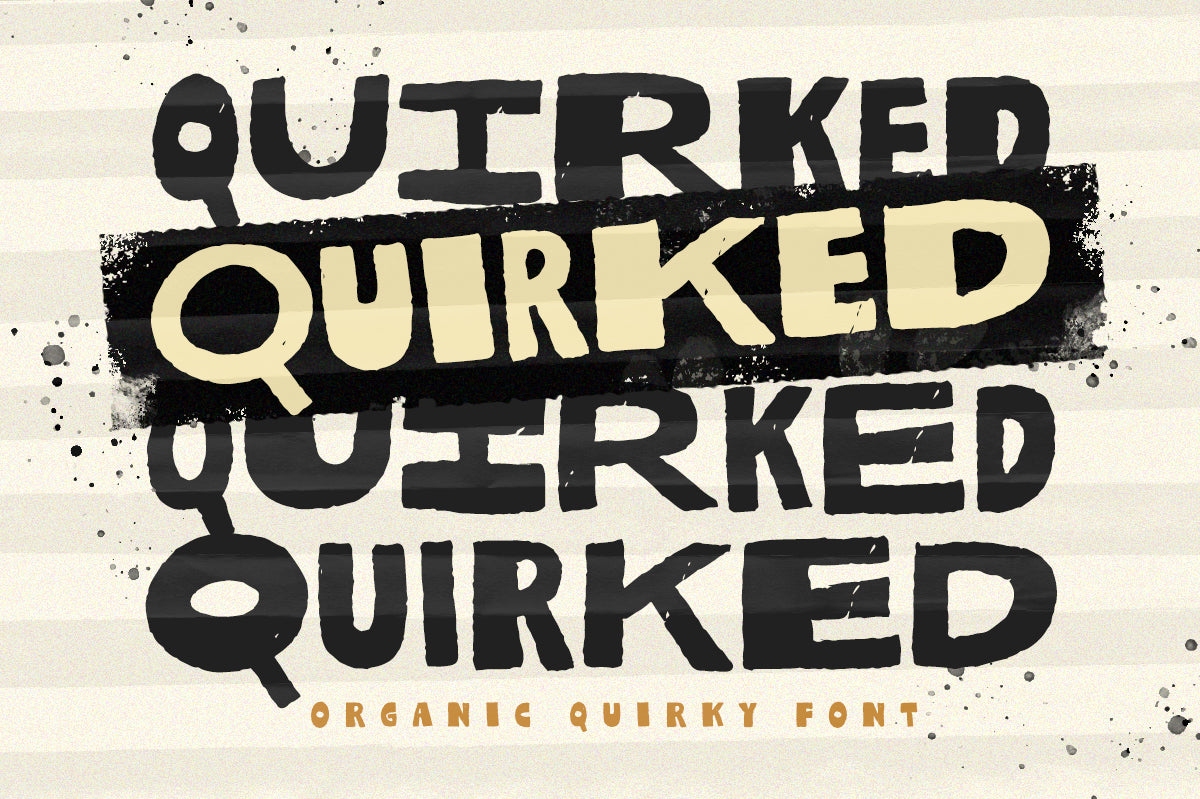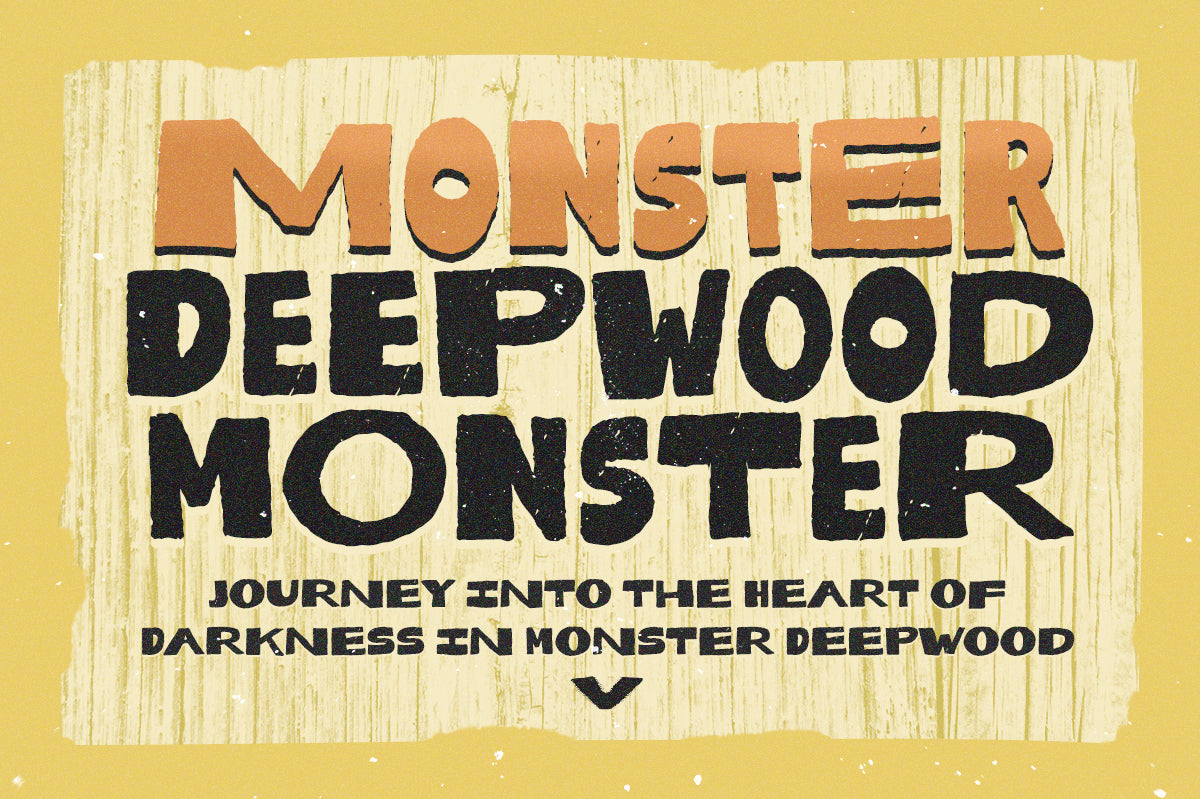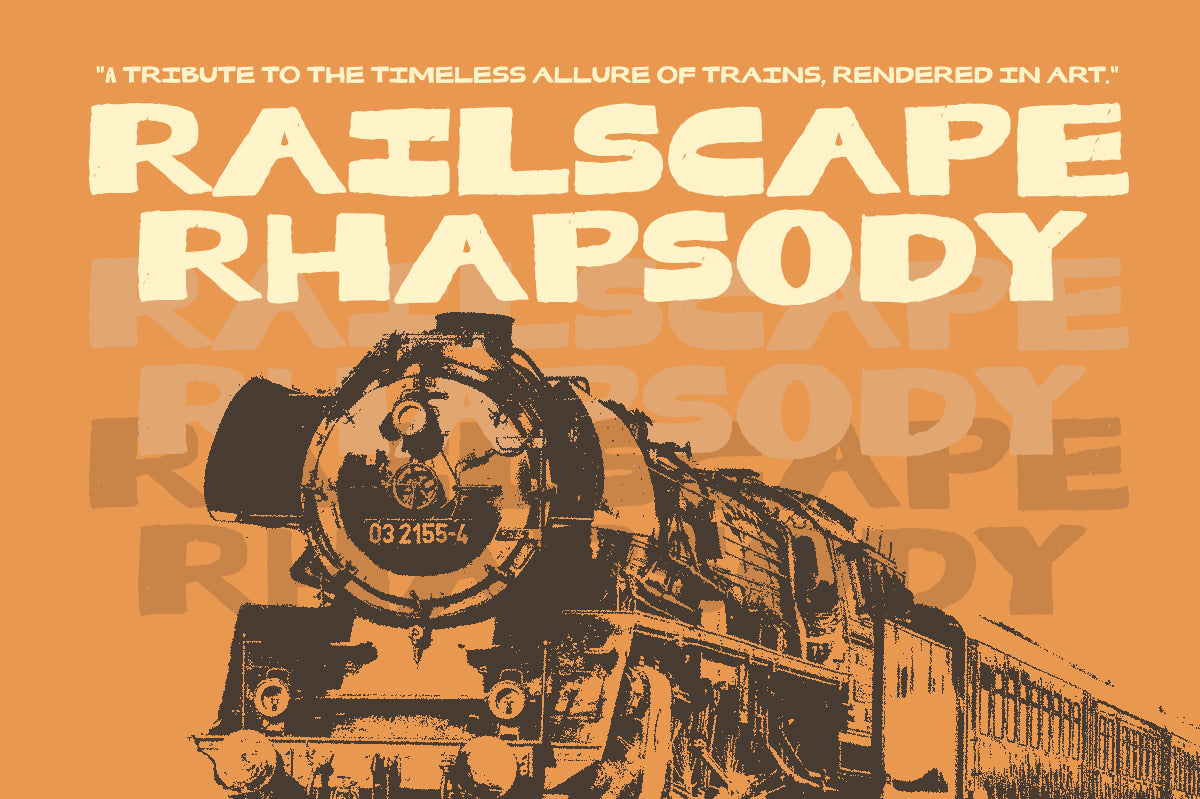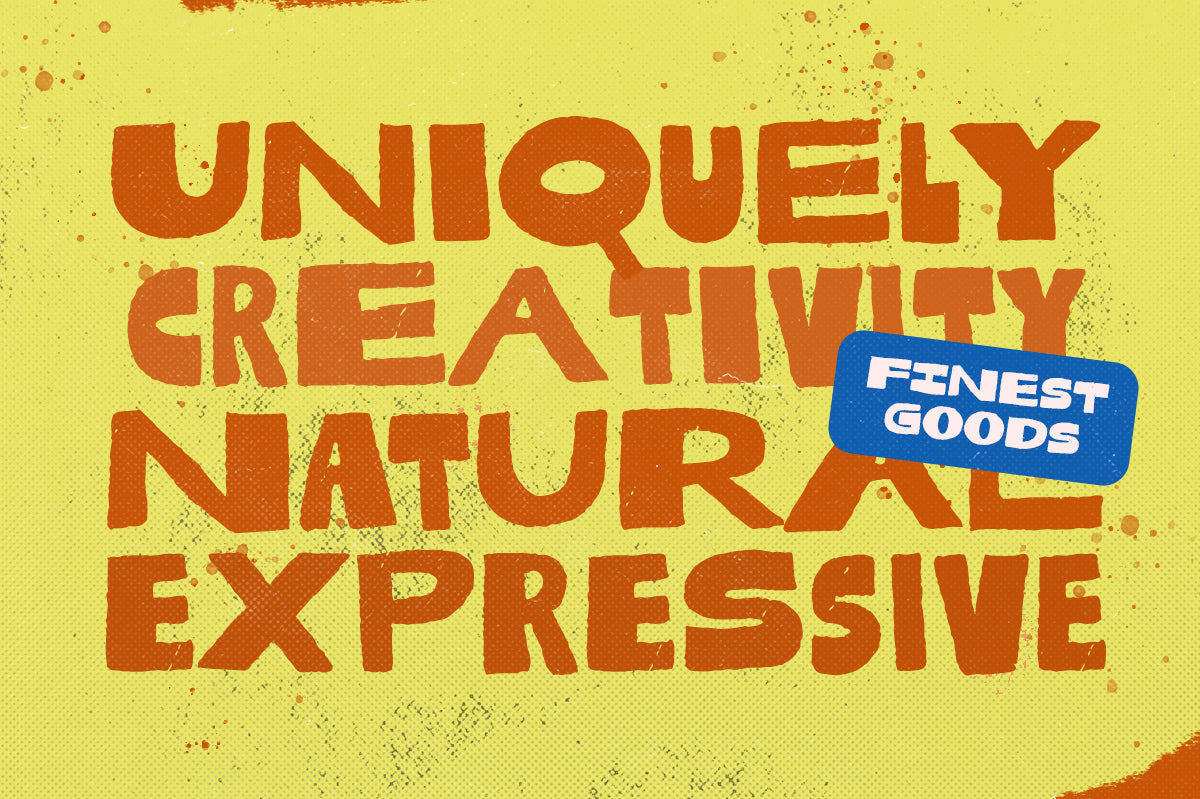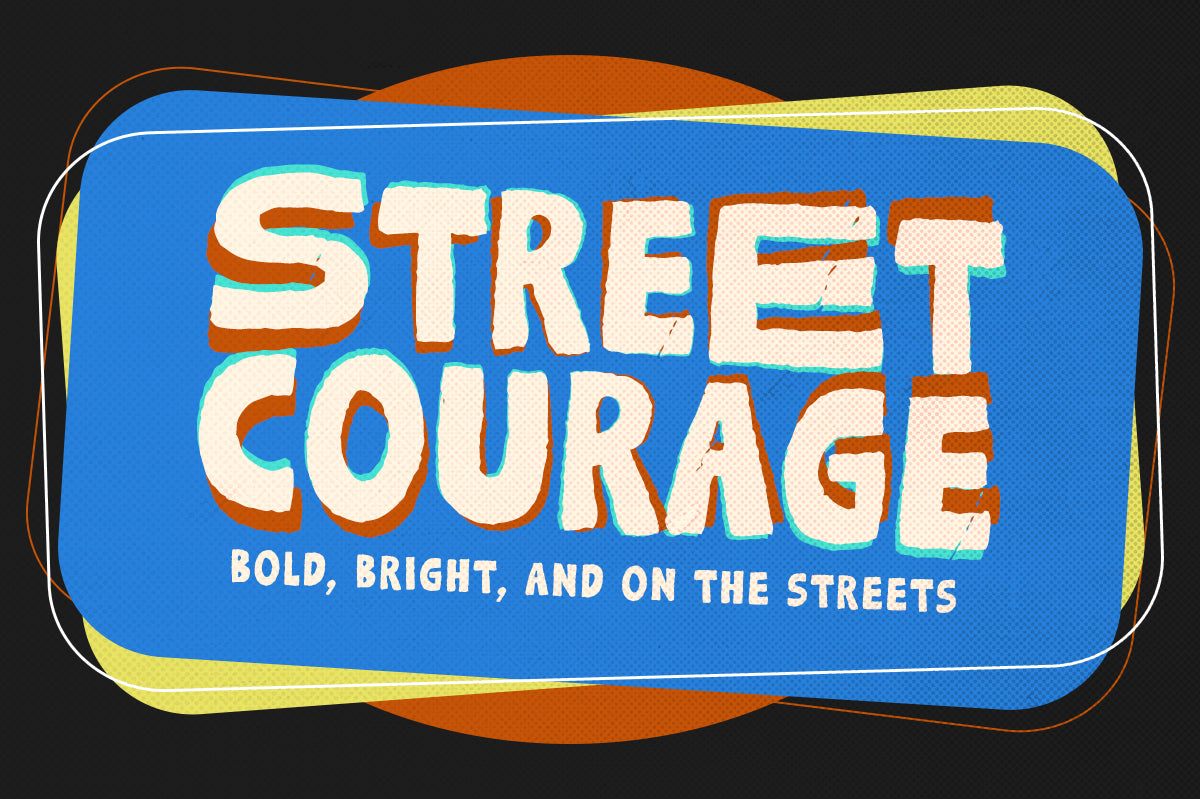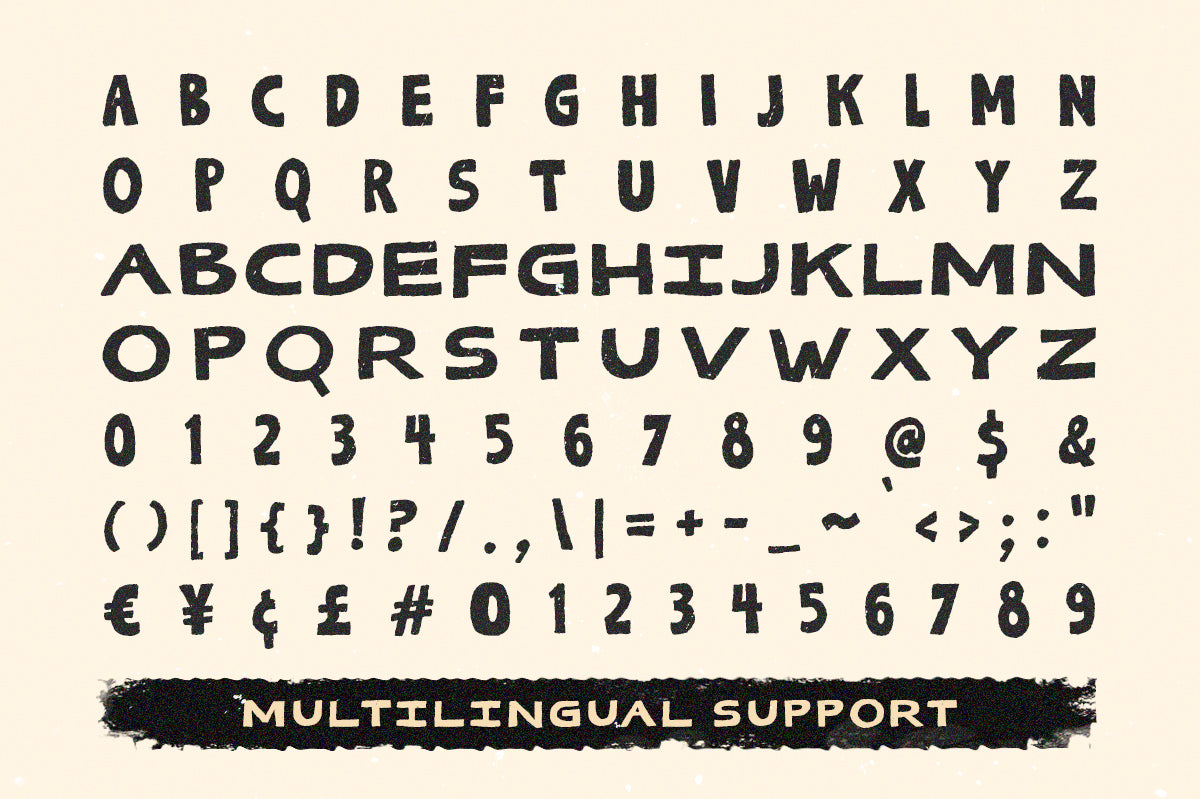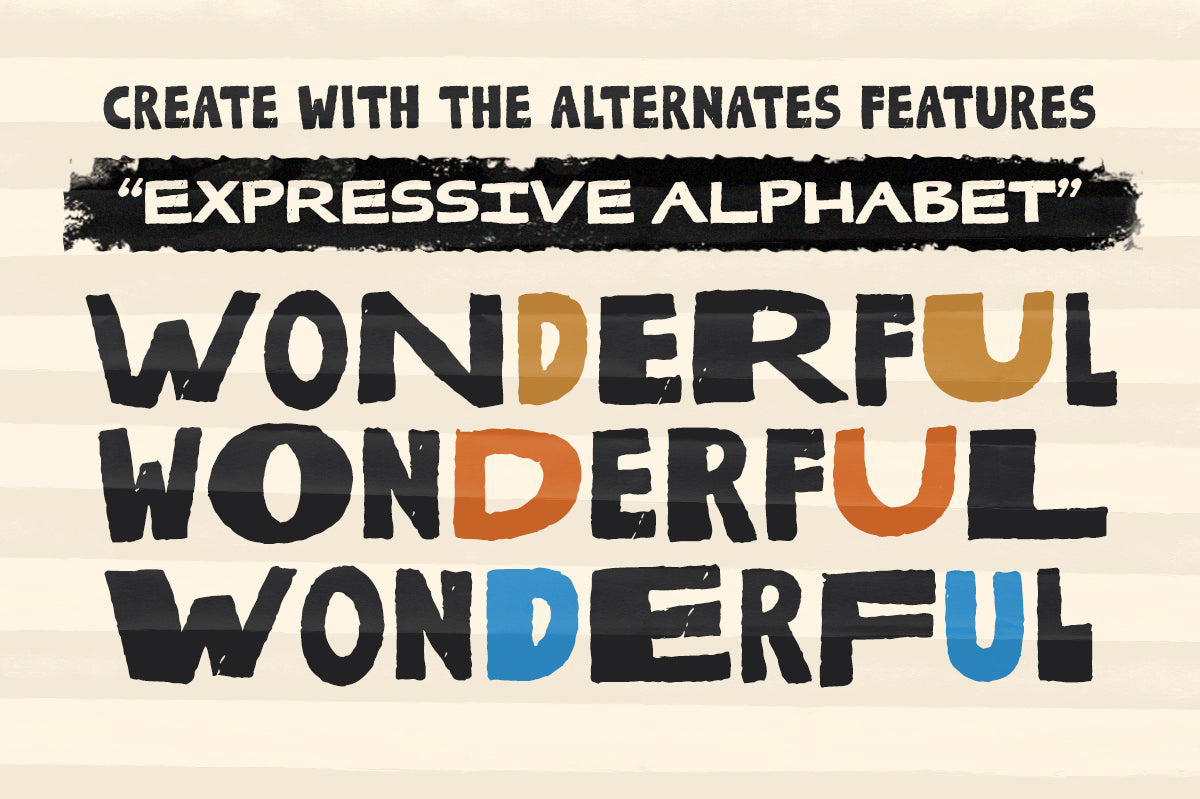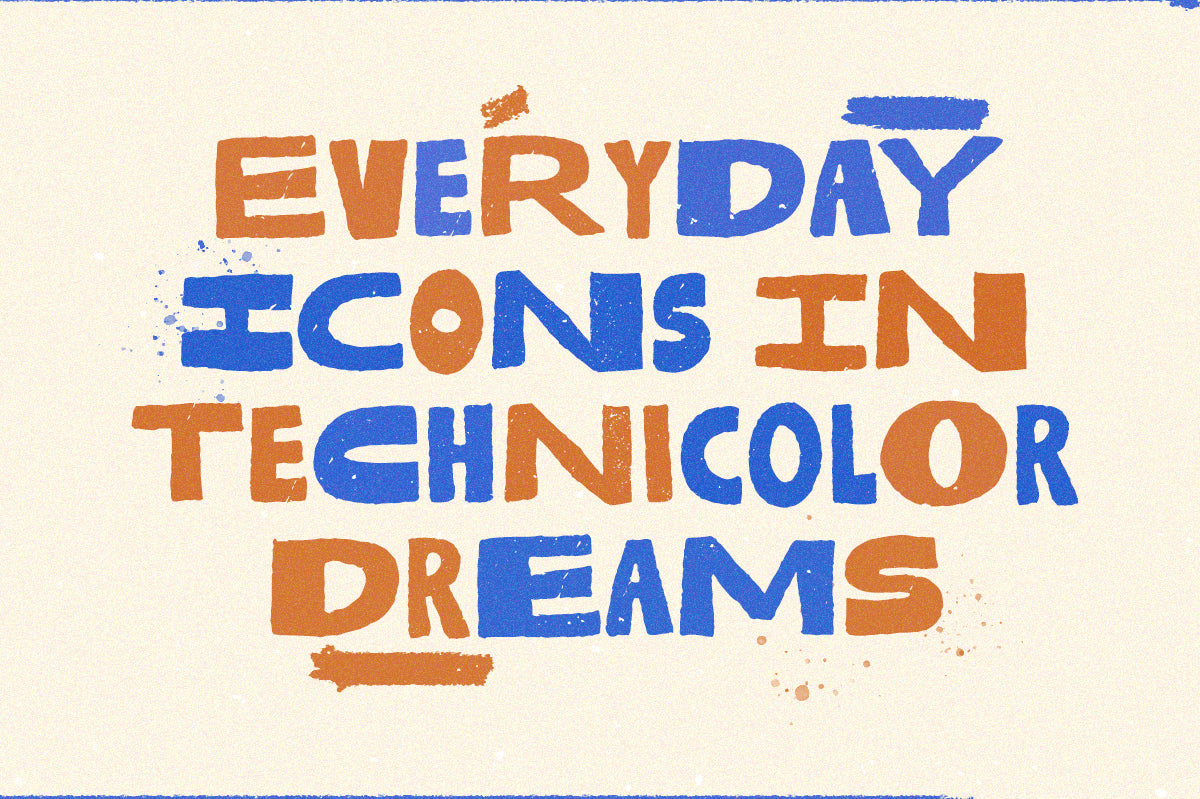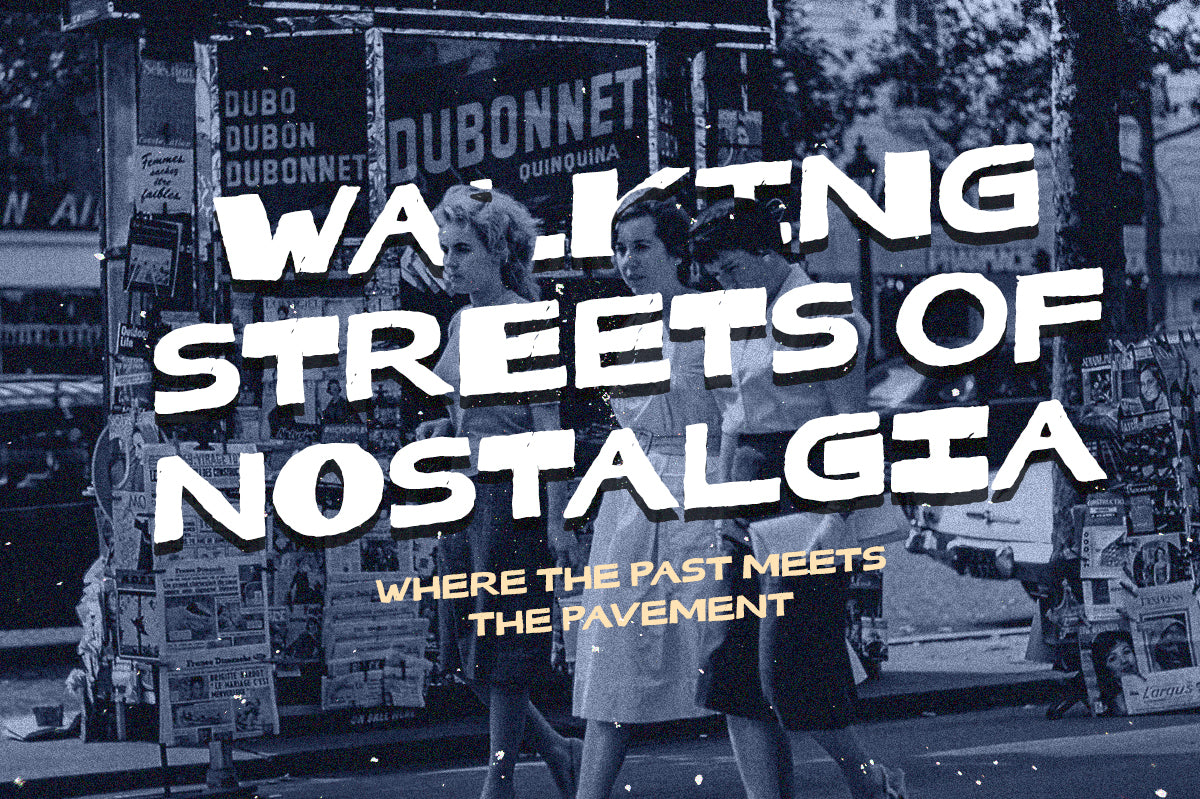
Quirked - Organic Quirky Font
Quirked is a quirky, bold font with a unique letterform. You can play around to fit the form using standard characters with alternate character to create new looks. This font is perfectly made to be applied especially in logos, and the other various formal forms such as invitations, labels, logos, magazines, books, greeting/wedding cards, packaging, fashion, make-up, stationery, novels, labels or any type of advertising purpose.
Features :
Uppercase & lowercase
Numbers and punctuation
Alternates/Ligatures
Multilingual